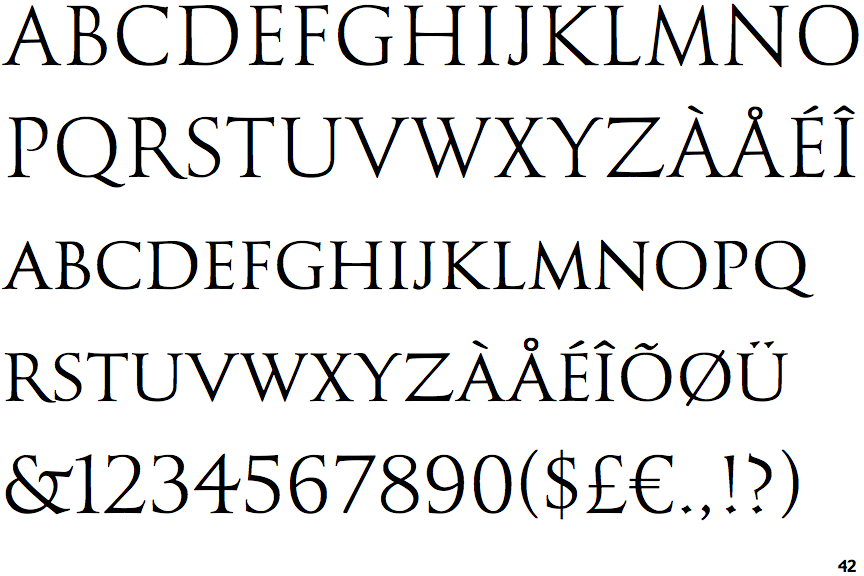
Goudy Titling
Based on the wood engravings Frederic Goudy made for his book "The Capitals From The Trajan Column At Rome" published by Oxford University Press in 1936.
Designers: Frederic W. Goudy and Steve Matteson Year: 1936, 2018 Publisher: Matteson Typographics An OpenType font that includes both lining and oldstyle figures. |